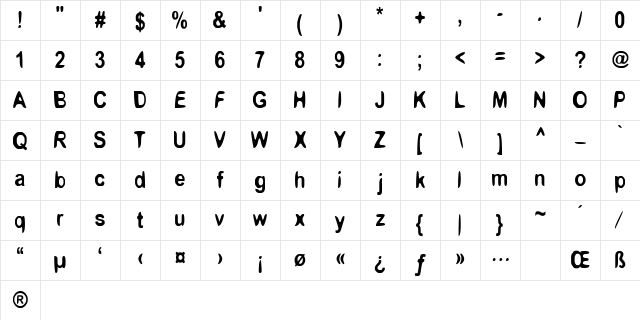
Boomerang monkey normal Free Font
Boomerang monkey normal
Style: normal
Design Context for Boomerang monkey
Boomerang monkey is a composed and adaptable typeface that performs quietly and consistently across a wide range of design contexts.
Pro Tip: Use Boomerang monkey in both headline and body roles to test its range before committing to a single application.